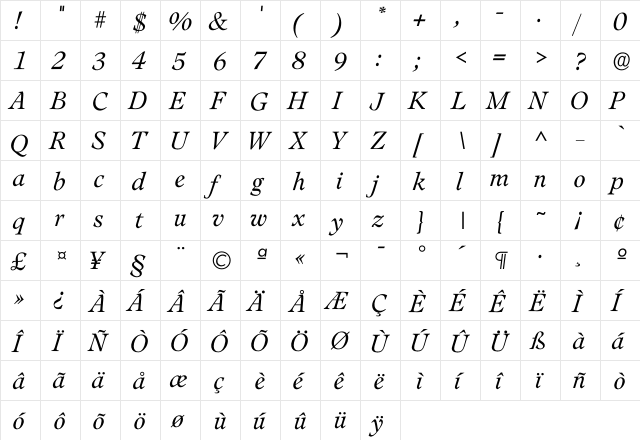
Ileamington Light
Design Context for Ileamington Typeface
Ileamington is a composed and adaptable typeface that performs quietly and consistently across a wide range of design contexts. The delicate stroke weight brings airiness and refinement to layouts.